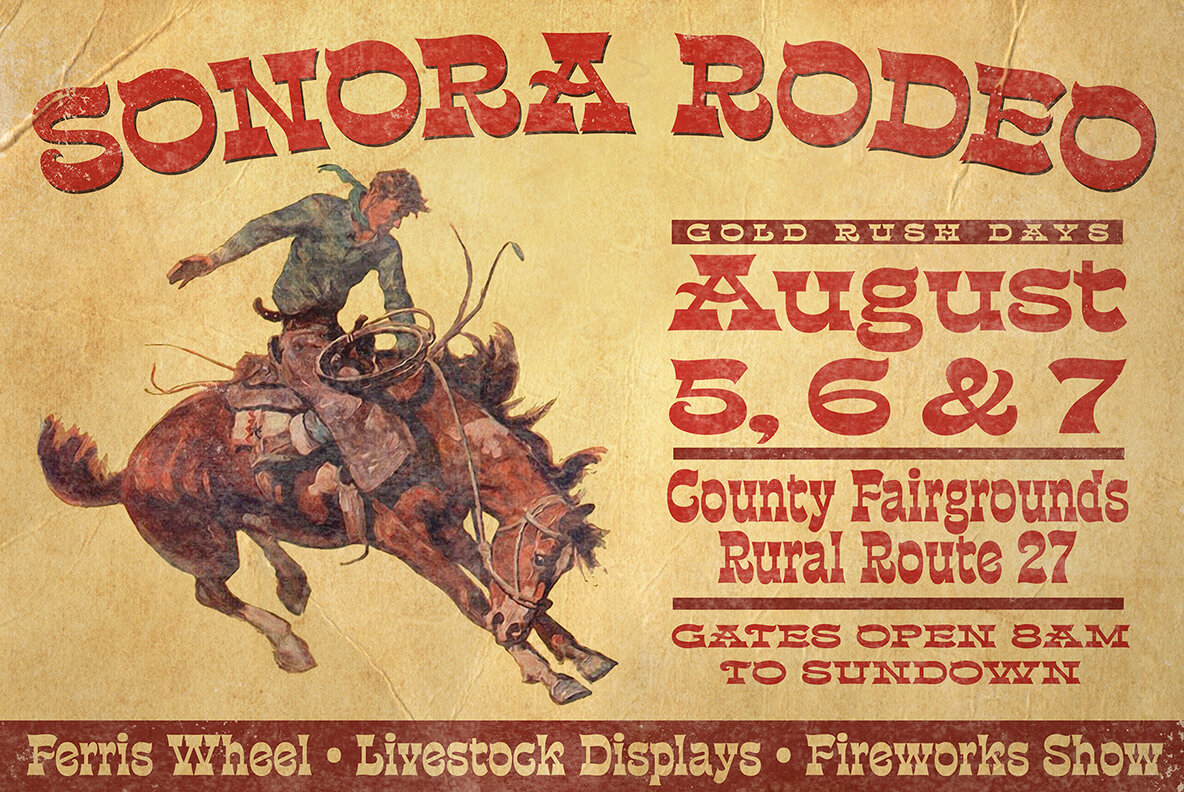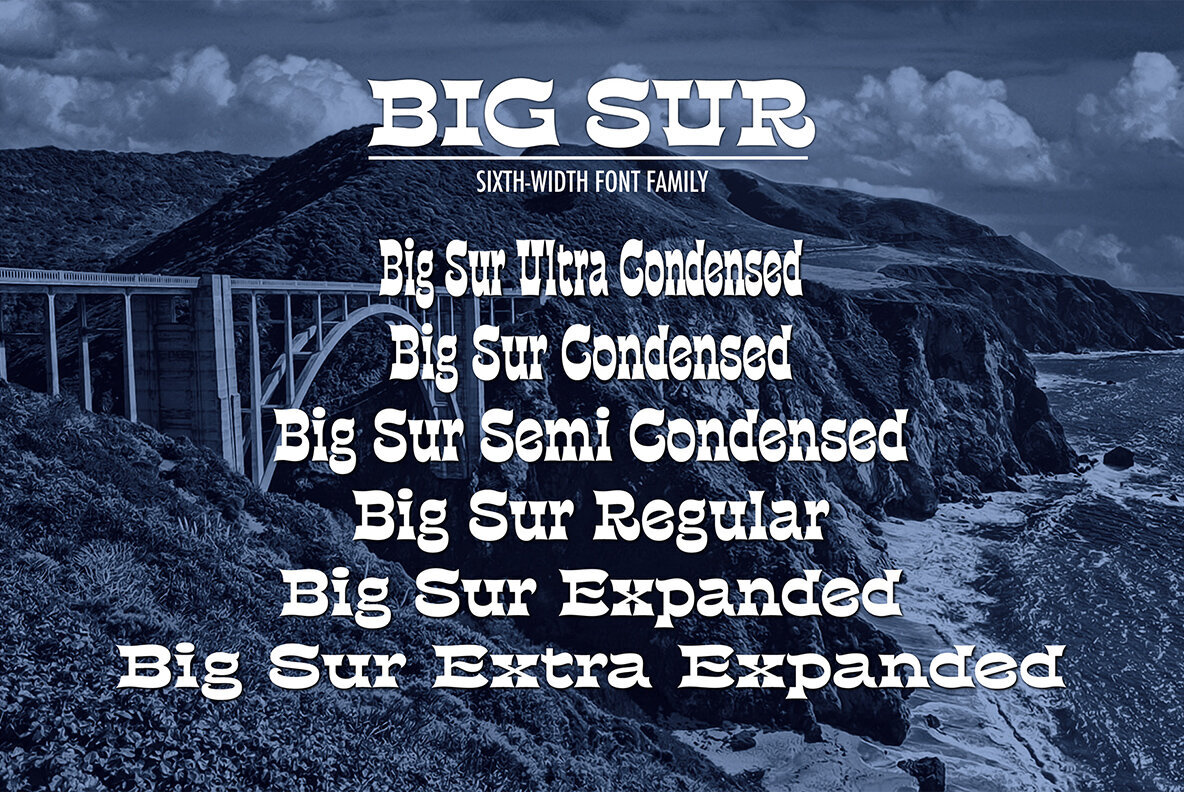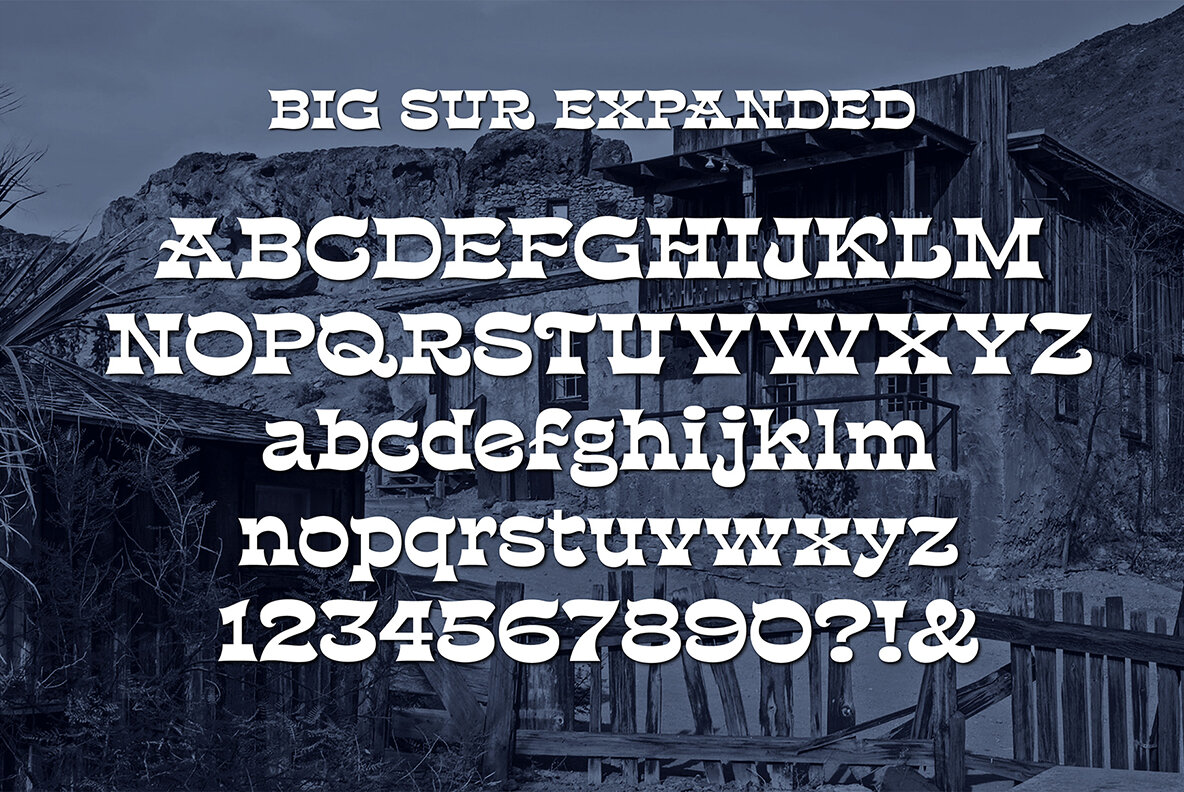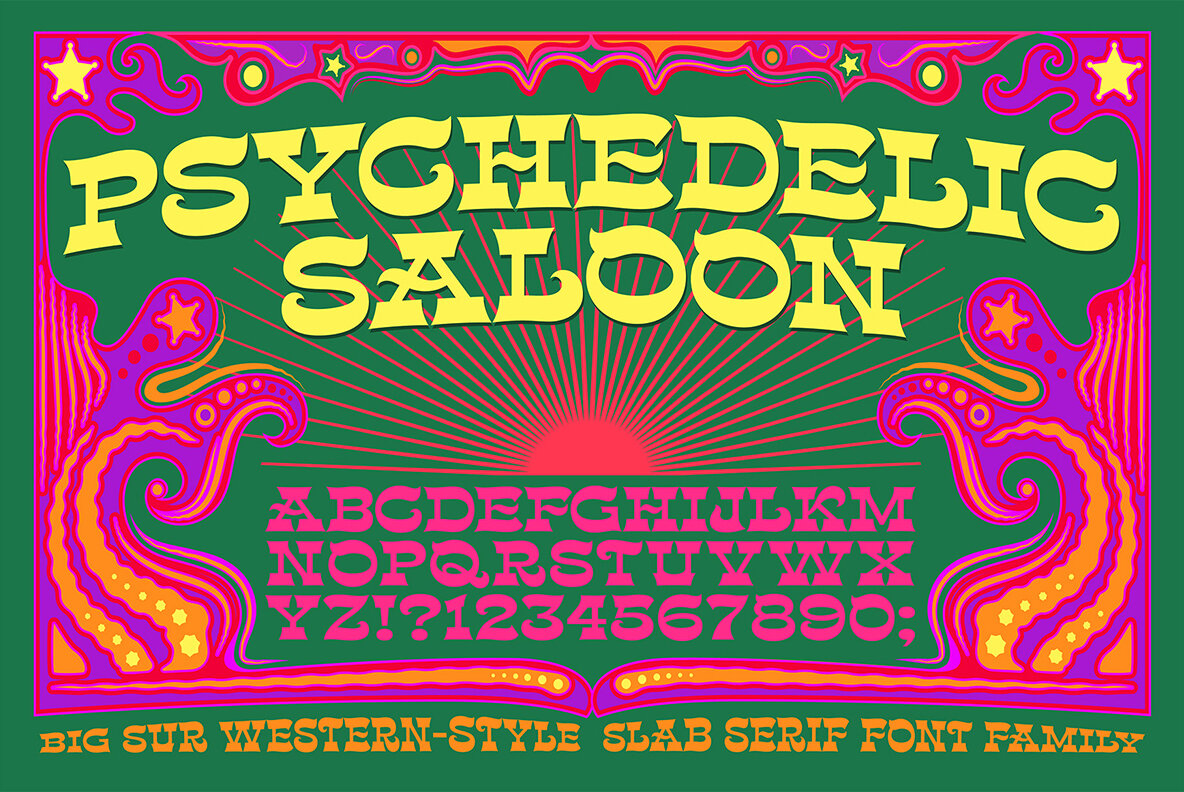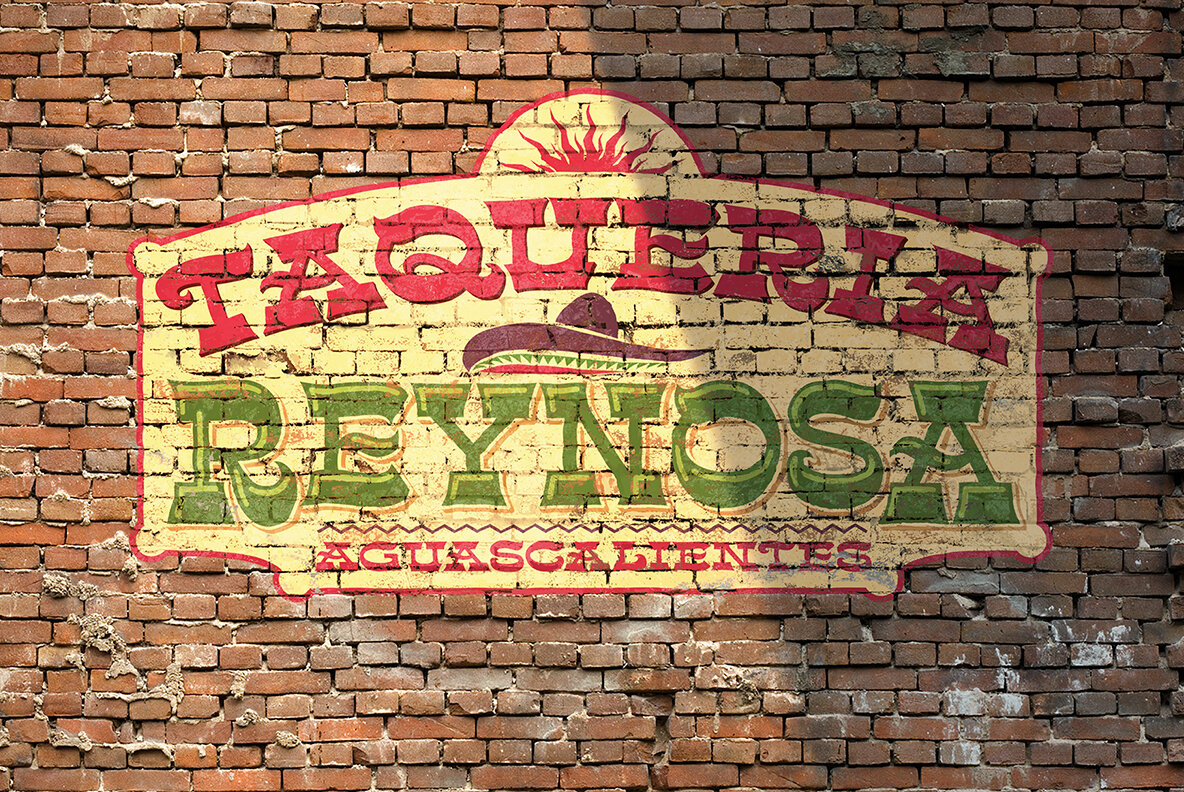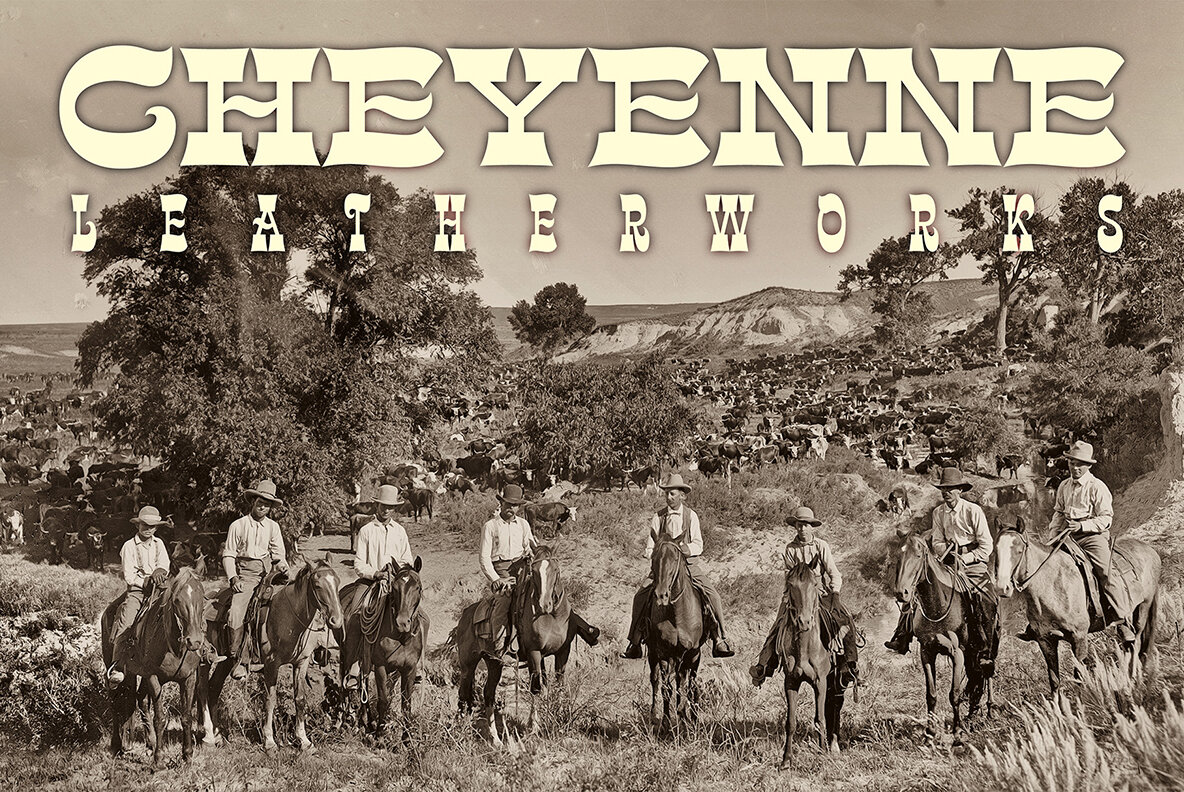
Big Sur Font
Big Sur is a six-width slab serif font family with a unique look. At first glance, it is clearly in the tradition of old west style and wood-type alphabets, with its chunky top and bottom strokes and serifs. But it also features a whimsical vibe in the curvy and pointed flourishes, the wavy baseline, and the swash terminals on many of the glyphs. It's a true standout with unique identifiers, and is bound to grab the eye as something new and different; yet it's traditional enough to establish a solid Western or vintage Americana style. Great for rodeo, county or state fairs, saloons, pubs & taverns, cowboy gear, and even vintage psychedelic posters.